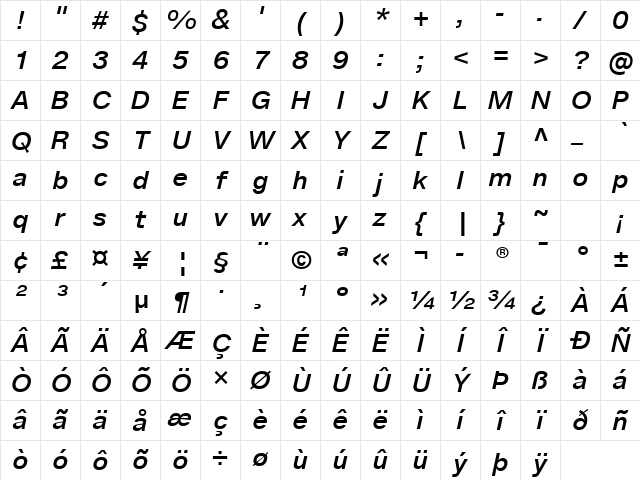
Complete Medium Italic glyph index. Displaying only characters natively supported by Medium Italic font.
Medium is a composed and adaptable typeface that performs quietly and consistently across a wide range of design contexts. The slanted form adds forward momentum and visual energy.